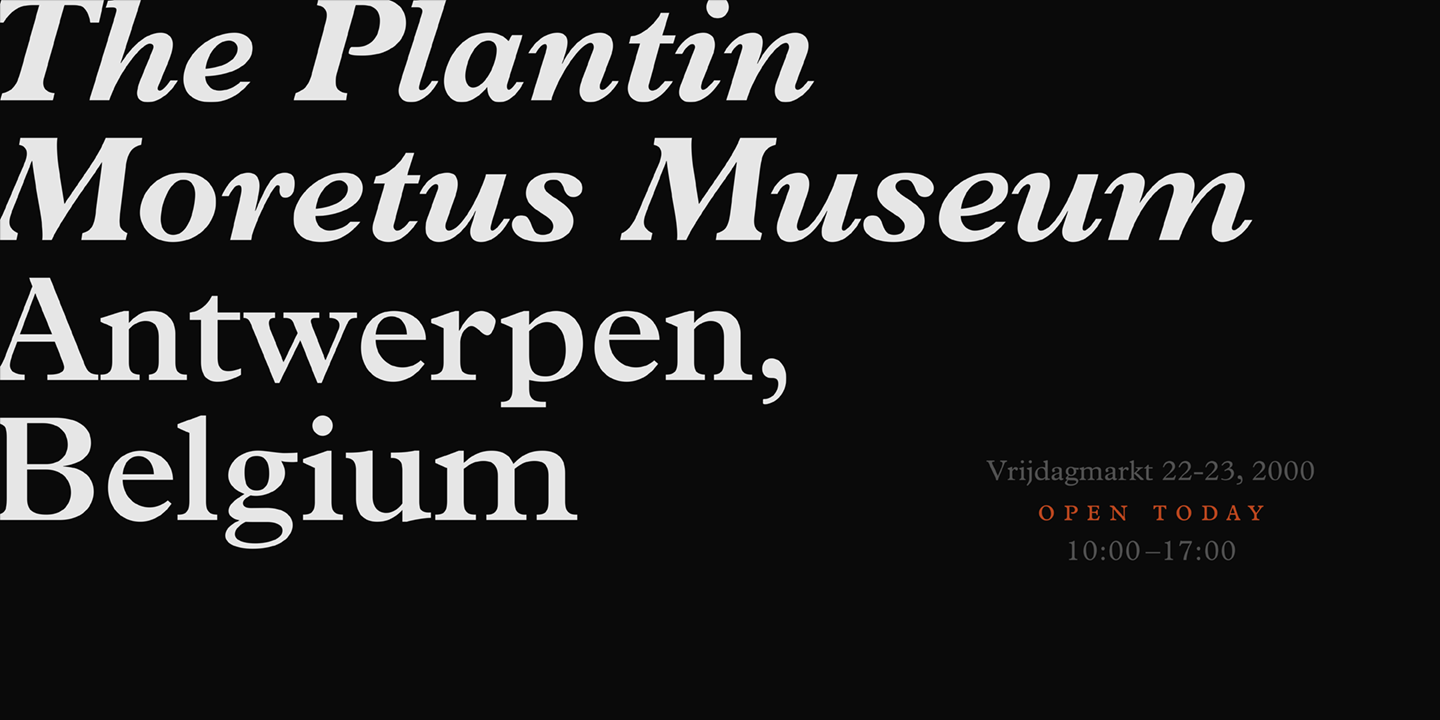
Plantin Font is perfect for classic book publishing, academic journals, historical documents, literary magazines, scholarly publications, traditional newspapers, heritage brand logos, and prestigious editorial designs requiring timeless readability.
What makes Plantin Font exciting is its distinguished Renaissance heritage that captures the elegant craftsmanship of 16th-century European printing masters. This legendary typeface features refined serif details and classical proportions based on historical letterforms from the golden age of typography, bringing scholarly sophistication and literary gravitas to contemporary publishing and academic communication projects.
The Plantin Font family includes regular, italic, and bold weights, plus small capitals and traditional ligatures that enhance the classical aesthetic with authentic oldstyle numerals and historical typographic refinements from the Renaissance printing tradition.
This prestigious typeface combines historical authenticity with superior readability, making Plantin Font Free Download a premier choice for academic and literary publishing projects. The font's scholarly character brings immediate credibility and intellectual distinction to any editorial application. Universities and prestigious publishers particularly value its ability to convey tradition and academic authority while ensuring comfortable extended reading experiences. The meticulously preserved letterforms guarantee exceptional legibility across all formats, from intimate poetry collections to comprehensive academic textbooks. Whether you're producing scholarly monographs or developing branding for cultural institutions, this font delivers unmatched typographic excellence. Creative professionals consistently select this typeface for projects requiring that perfect harmony between Renaissance elegance and contemporary publishing standards, making it essential for high-quality editorial work that demands both historical gravitas and optimal reading comfort.